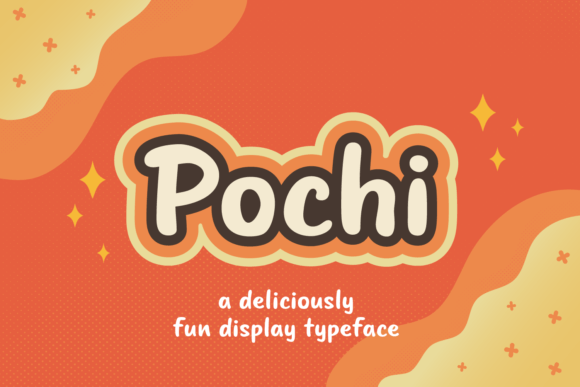
Meet Pochi, the spirited display font from Potpourri, brimming with playful charm and a touch of whimsy. Inspired by the vibrant strokes of paintbrushes, Pochi is more than just a font; it's an artistic journey waiting to be explored. Crafted with precision and a keen eye for detail, each character in Pochi dances with an infectious rhythm, adding a captivating spark to your creative projects.
Pochi's versatility shines brightest in the world of cartoon-inspired designs. Its energetic strokes bring life to animated characters, making them leap off the screen with personality. From vibrant children's games to whimsical quotes and titles, Pochi's playful nature adds a touch of magic to every creation.
But Pochi's talents extend far beyond the realm of animation. Its striking presence commands attention on brand names, book covers, and posters, inviting viewers into a world of imagination. Whether you're a seasoned designer or just starting your creative journey, Pochi will effortlessly elevate your work with its infectious charm.
With Pochi by your side, your designs won't just be seen - they'll be felt. Its energetic spirit will ignite your creativity, transforming ordinary words into captivating expressions that resonate with your audience. Embrace the magic of Pochi and let your imagination run wild.